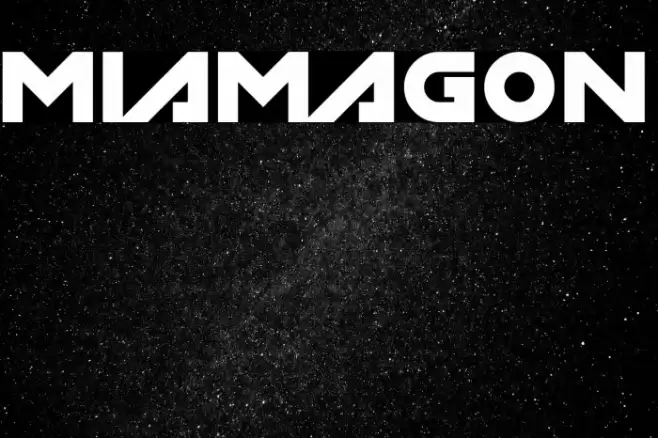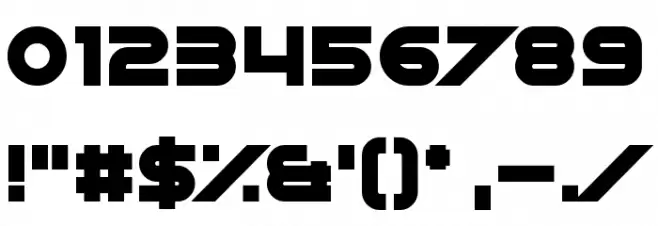
Miamagon Font
Miamagon Description
This font features a bold and geometric design, characterized by sharp angles and clean lines. The uppercase letters are particularly striking, with a futuristic and modern aesthetic that is consistent across the entire alphabet. The numbers and special characters maintain this style, offering a cohesive look. The font's boldness and angularity make it stand out, ideal for attention-grabbing headlines or logos. Its uniformity and precision suggest a sense of strength and stability, while the geometric shapes add a dynamic and contemporary feel.
A bold, geometric font with sharp angles and a modern aesthetic from Uncategorized fonts.
- Proposed Projects: Ideal for futuristic branding, tech-related projects, or modern advertising campaigns.